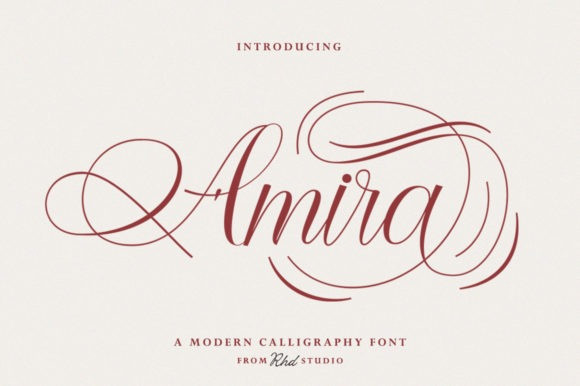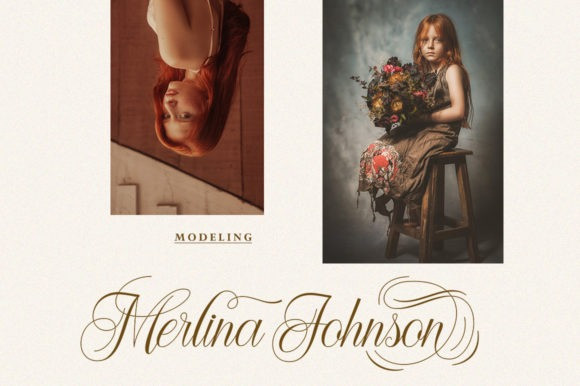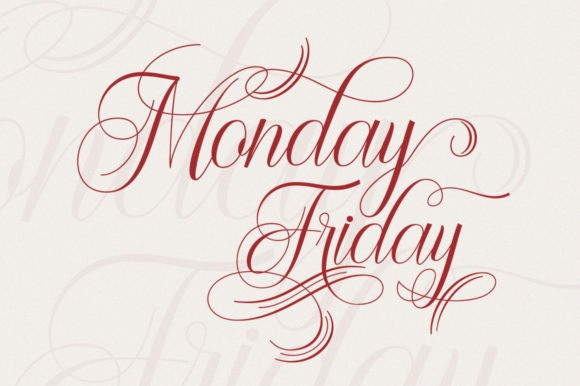
Amira Font
Amira is a stylish and slim script font. It is perfect for product packaging, branding project, magazine covers, social media, wedding, or just used to express words above the background.